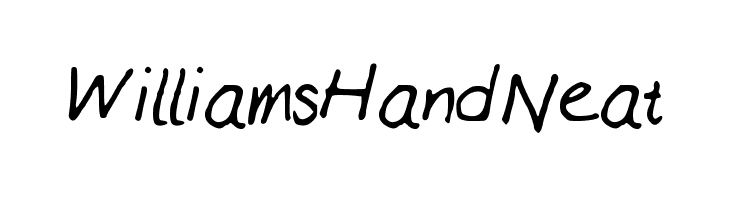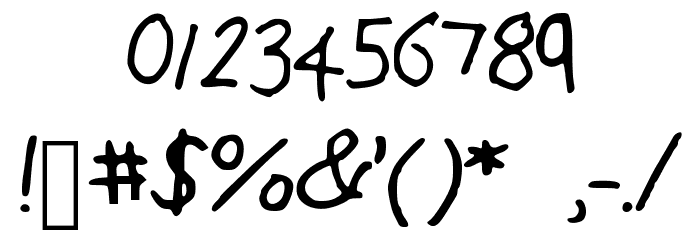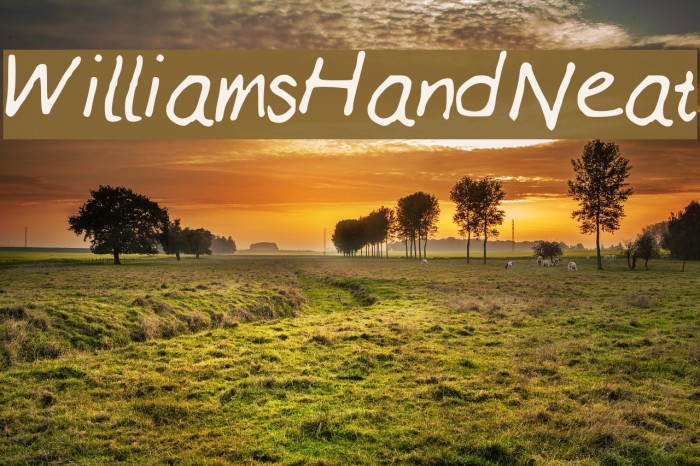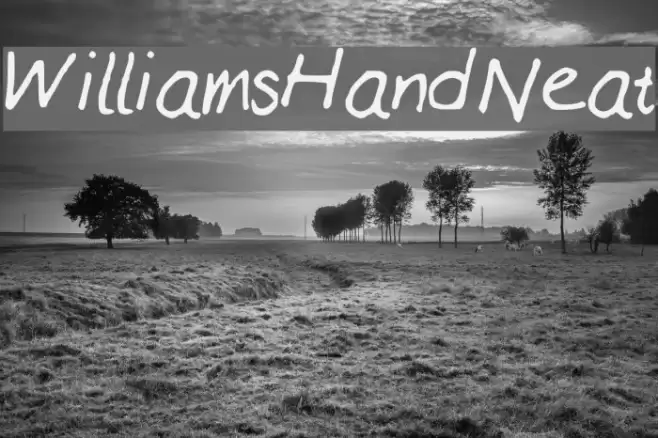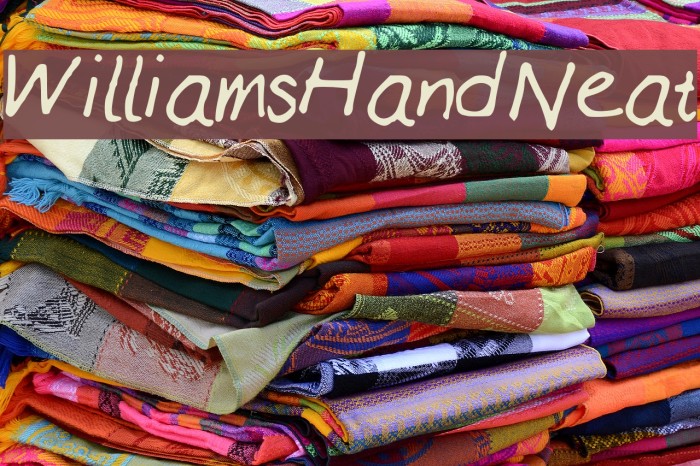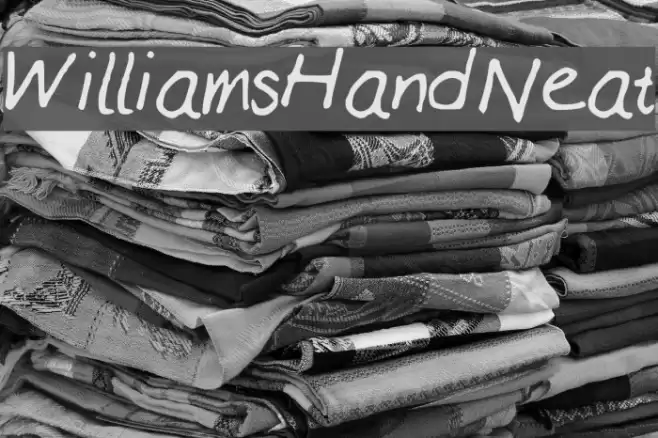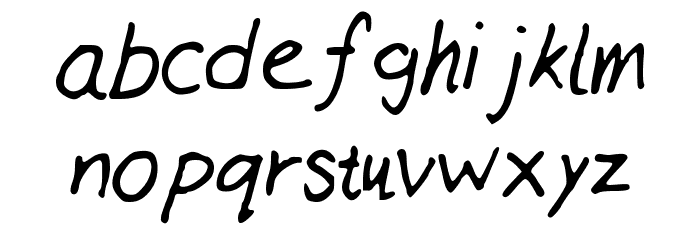
WilliamsHandNeat Font
This font exhibits a casual, handwritten style with a playful and informal appearance. The characters are slightly slanted, giving a sense of movement and fluidity. The strokes are uneven, mimicking the natural variations found in handwriting. The uppercase letters are bold and prominent, while the lowercase letters maintain a consistent flow. Numbers and special characters are crafted with the same attention to detail, ensuring legibility and coherence across all glyphs. This font is ideal for projects that require a personal touch or a creative flair.
A casual, handwritten font with a playful and informal style.
• Proposed Projects: Greeting cards, personal invitations, creative posters, and informal branding materials.
• Category: Handwritten
• Contrast: Low
• Overall Style: Casual, Playful
• Use Case: Headlines, Informal text, Creative projects